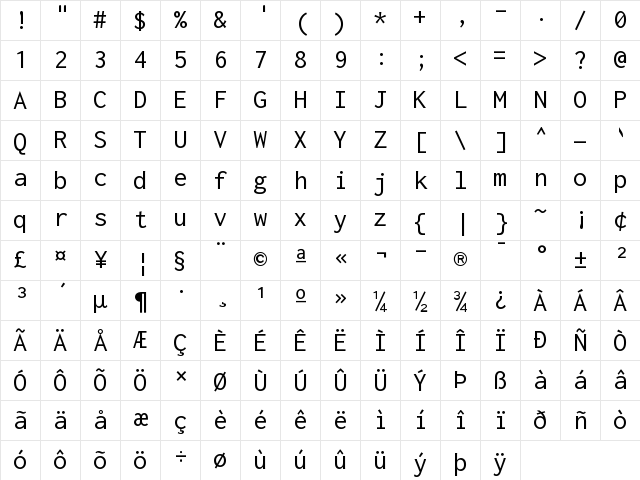
Inconsolata LGC Regular Free Font
Inconsolata LGC Regular
Design Context for Inconsolata LGC
Inconsolata LGC is a composed and adaptable typeface that performs quietly and consistently across a wide range of design contexts.